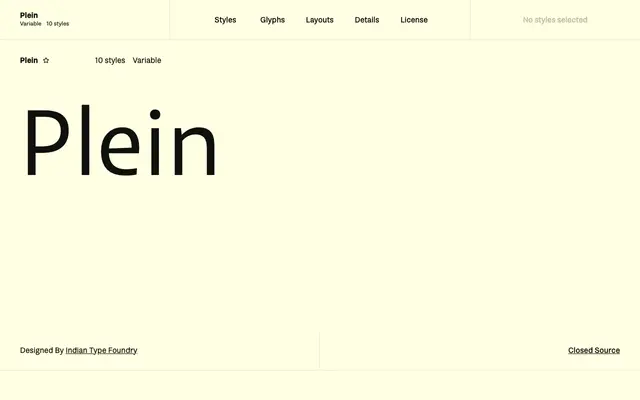
Plein
A humanist sans serif by Berlin-based designer Inga Plönnigs, offering five weights with italics and variable font support across 135 languages.
Drawn with virtually monolinear strokes and open letterforms, Plein is suited to editorial work, branding and signage where legibility is a priority. The upright cuts use double-storey 'a' and 'g', switching to single-storey in the italics, while the default numerals are proportional oldstyle figures with lining figures available via OpenType. Inga Plönnigs, a graduate of the Type & Media programme at KABK in The Hague, designed the family and it debuted on Fontshare in March 2021.
Described explicitly as a humanist-style sans serif with open, legible forms and virtually monolinear strokes, placing it squarely in the humanist sans tradition.